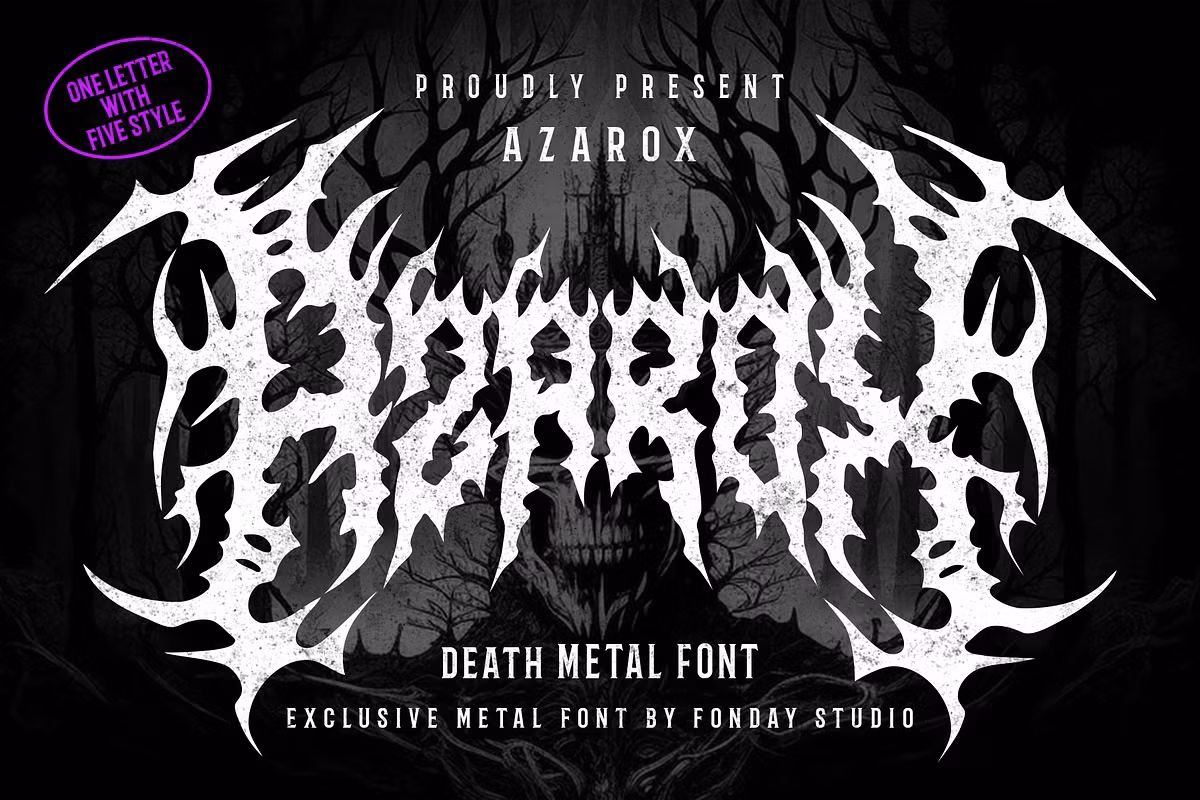
AZAROX DEATH METAL FONT Free Download
AZAROX Death Metal Font Free Download
AZAROX Death Metal Font Free Download is a brutal, high-impact typeface designed specifically for the extreme aesthetics of metal and hardcore music. Featuring jagged edges, chaotic strokes, and an aggressive visual energy, AZAROX is perfect for death metal band logos, album covers, festival posters, dark-themed apparel, and horror-related branding.
This font embodies the raw intensity and rebellious spirit of underground music scenes. Every letter drips with heavy distortion and hand-drawn madness—ideal for projects that reject the mainstream and demand bold, fearless expression.